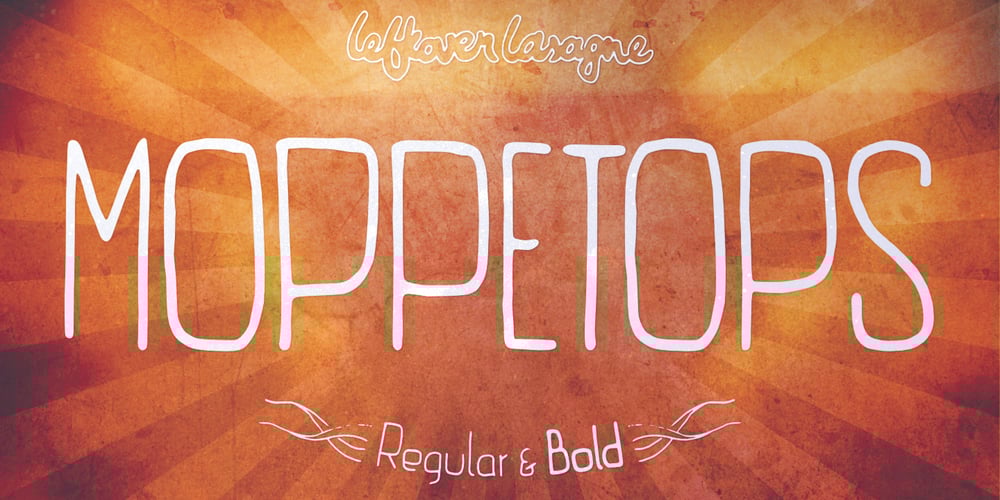
Moppetops LL Font Family was designed by Alex Volmer and published by Leftover Lasagne. Moppetops LL contains 2 styles and family package options. Moppetops is a sophisticated yet quirky handwritten typeface that comes with a huge amount of graphical elements, accented and even greek letters. The font features auto ligatures for duplicate letters, some connected letters, quite a few graphical elements that can be accessed by shortcuts (lowercase letter + number form 0-9) and smallcaps.